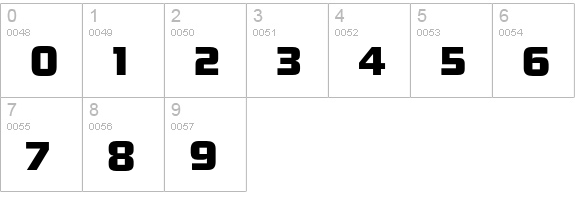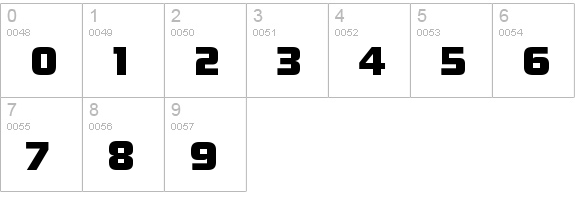
MorganBig Extrabold is an extra-heavy, attention-grabbing variant in the MorganBig typeface family \xE2\x80\x94 well suited to high-impact headlines, posters, and bold branding.
MorganBig Extrabold font is a bold and impactful typeface that demands attention and makes a statement. With its strong and prominent letterforms, MorganBig Extrabold is perfect for headlines, titles, and any design that requires a bold and commanding presence. The thick strokes and sharp edges of this font exude confidence and power, making it ideal for projects that require a bold touch. What's even better is that MorganBig Extrabold font is available for free download at FontsMarket.com. This means you can easily access this striking font and use it in your projects without any cost. Don't miss out on the opportunity to add this powerful typeface to your design arsenal and make a bold statement with MorganBig Extrabold font.